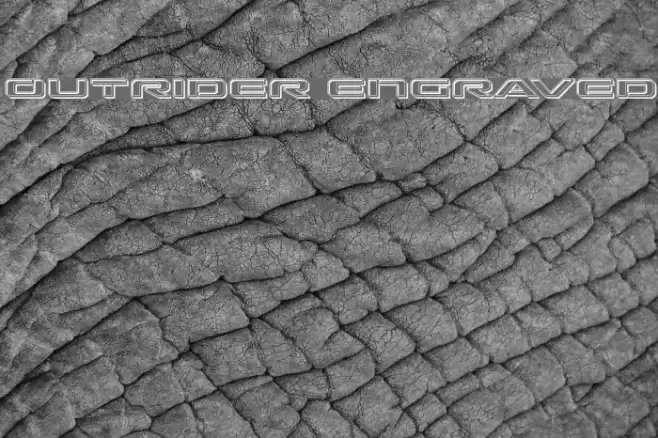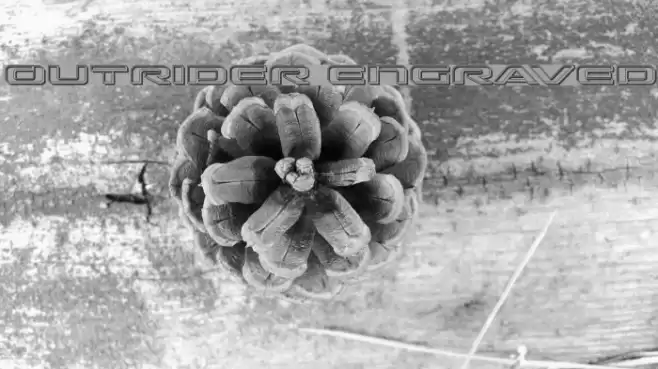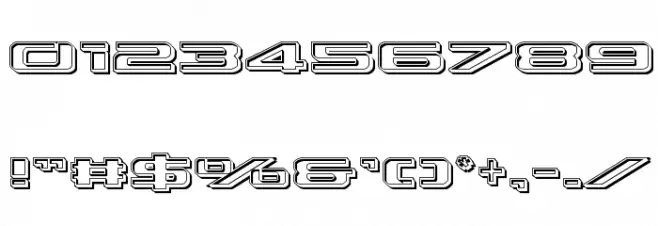
Outrider Engraved Font
Outrider Engraved Description
This font features a bold, futuristic design with a distinct engraved effect. The characters are outlined with a double line, creating a three-dimensional appearance. Each letter and number is crafted with sharp angles and geometric precision, giving it a modern and tech-inspired look. The uppercase and lowercase letters maintain a consistent style, while the numbers and special characters complement the overall aesthetic. This font is ideal for projects that require a strong, impactful visual presence.
A bold, futuristic font with an engraved, three-dimensional effect from Uncategorized fonts.
- Proposed Projects: Ideal for technology branding, sci-fi themed designs, video game titles, and futuristic posters.
- Overall Style: Futuristic